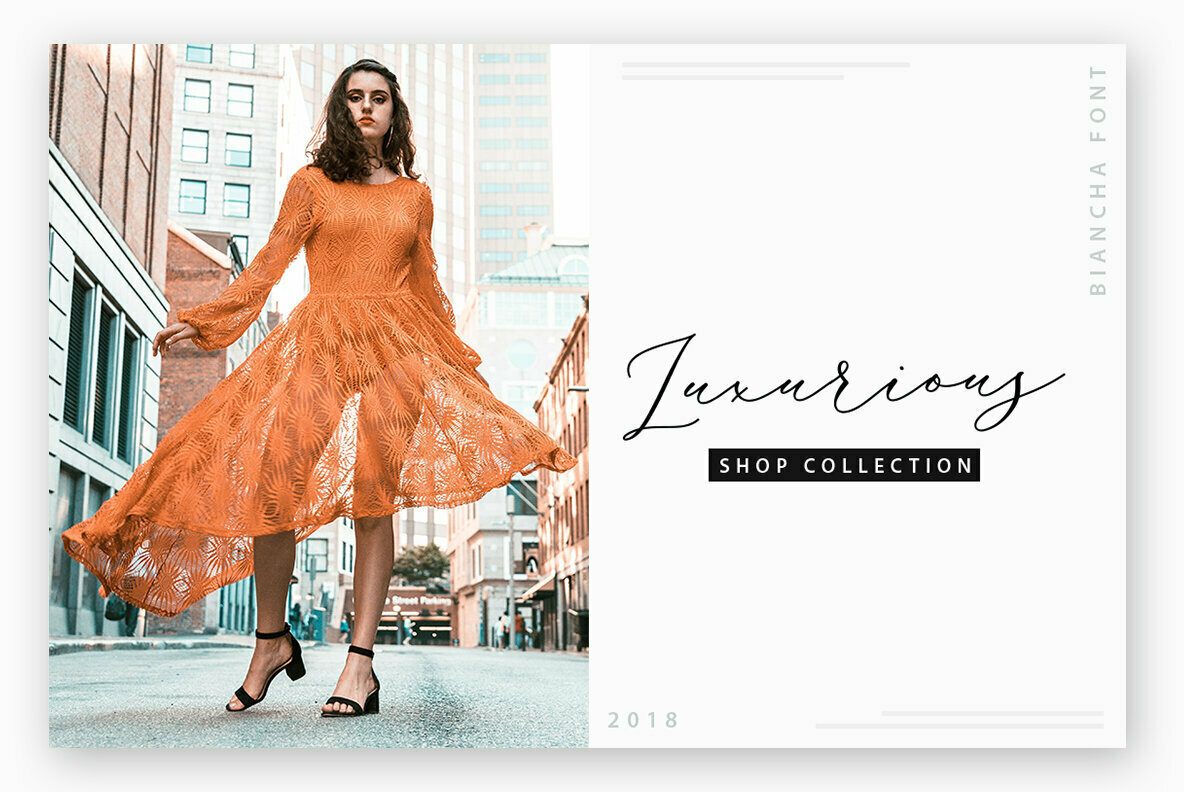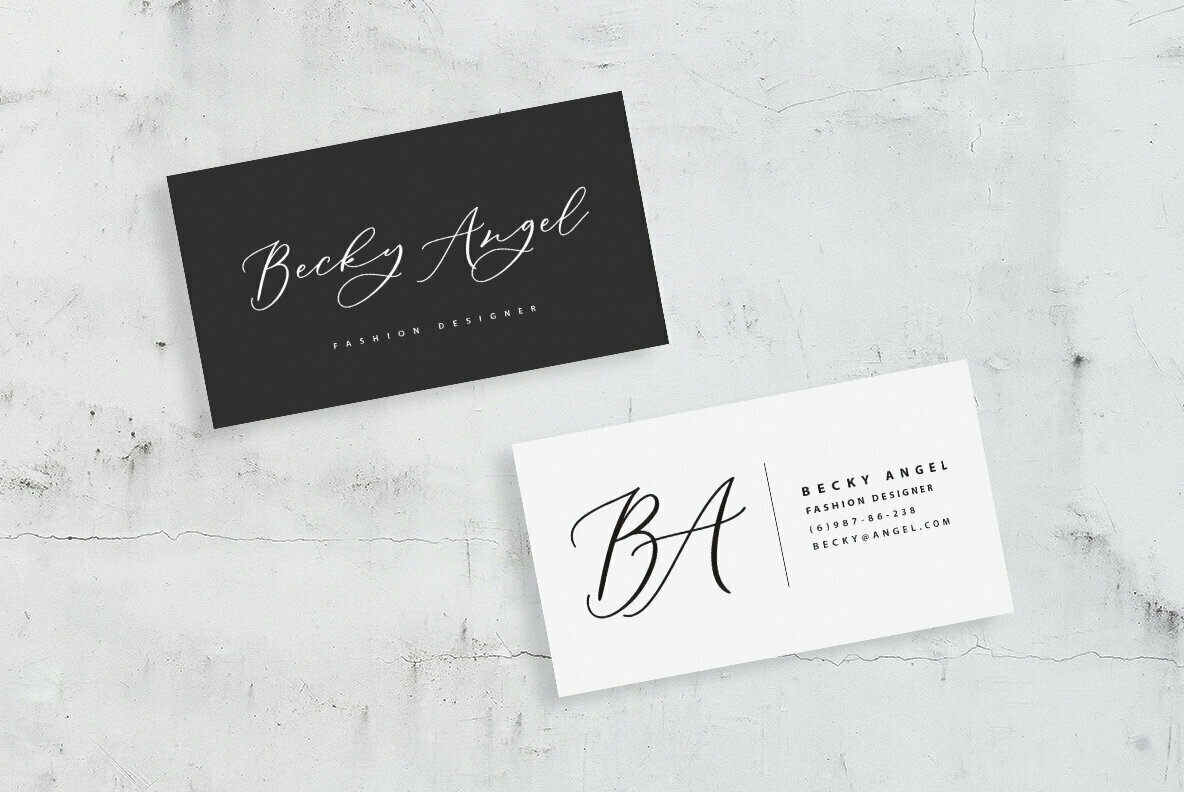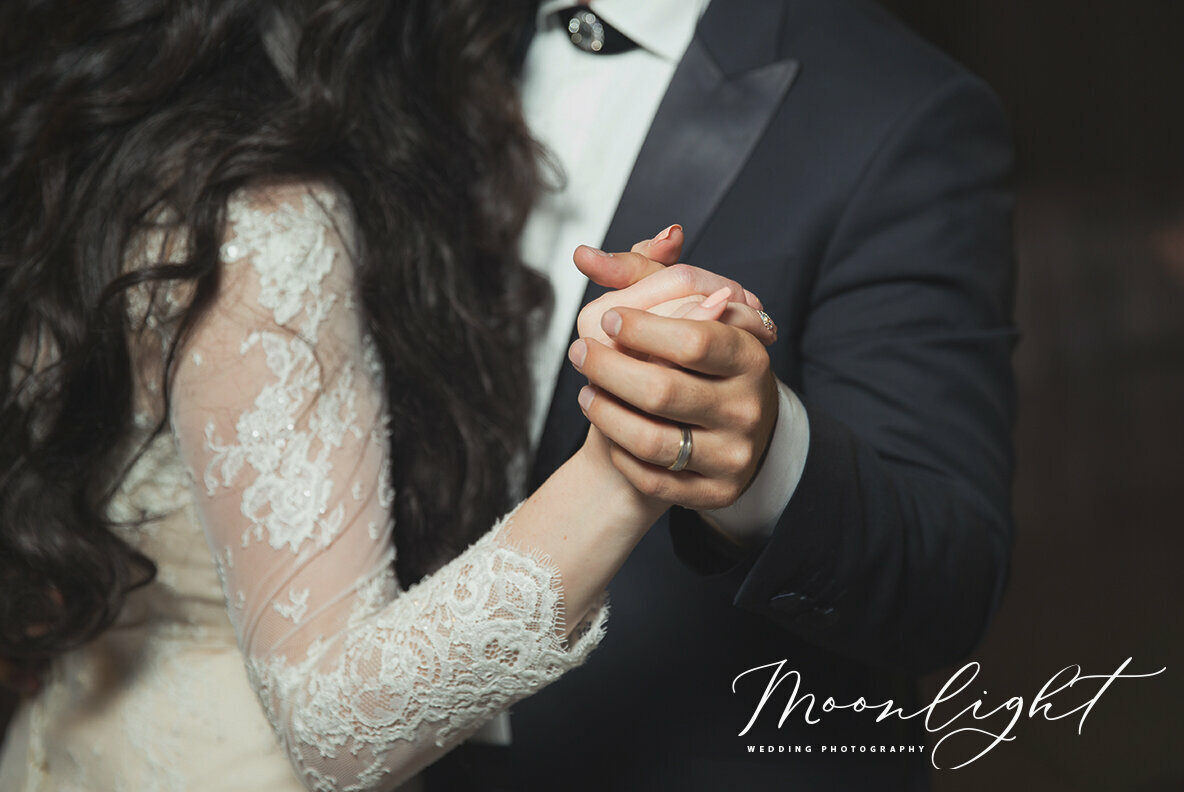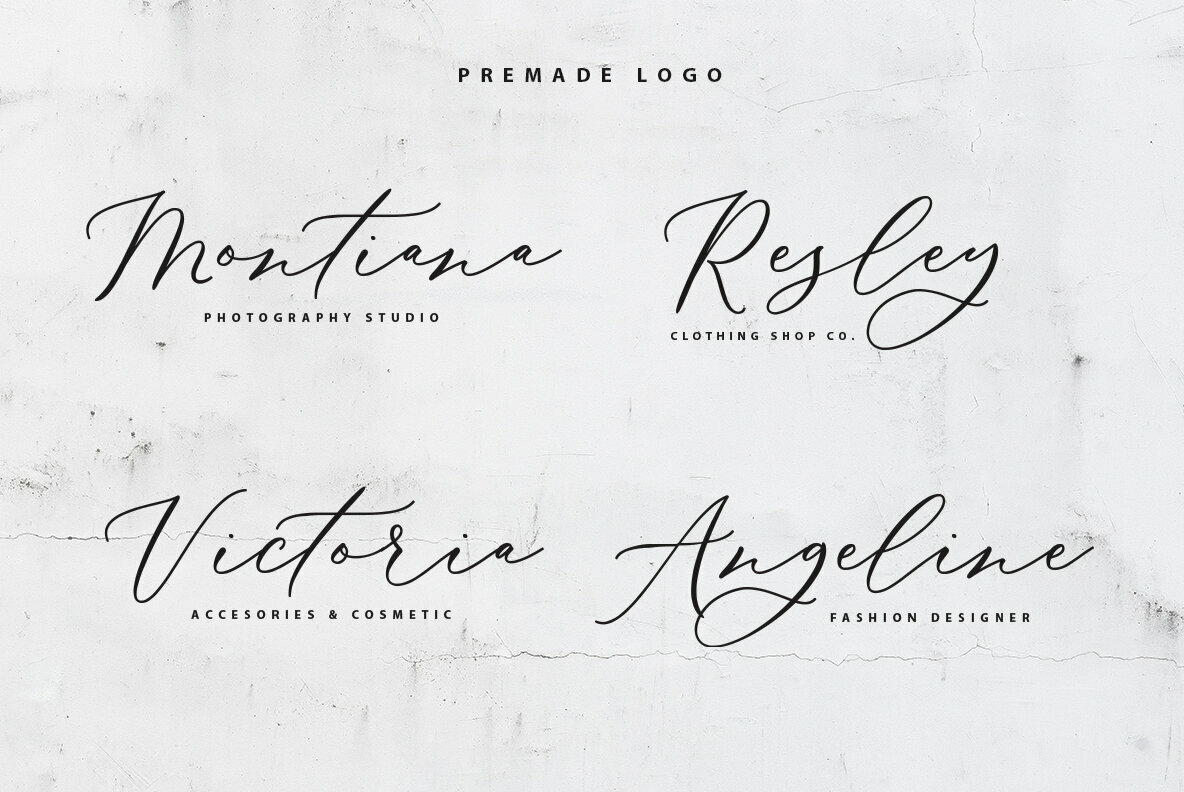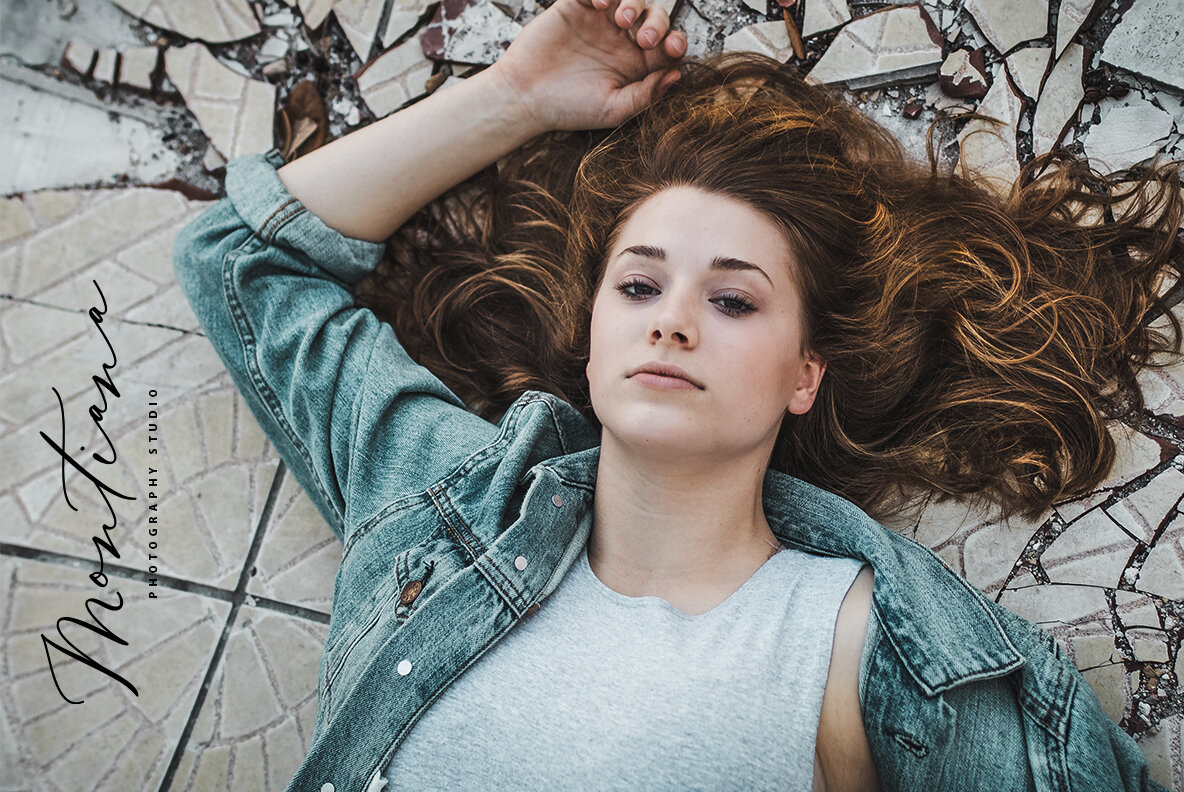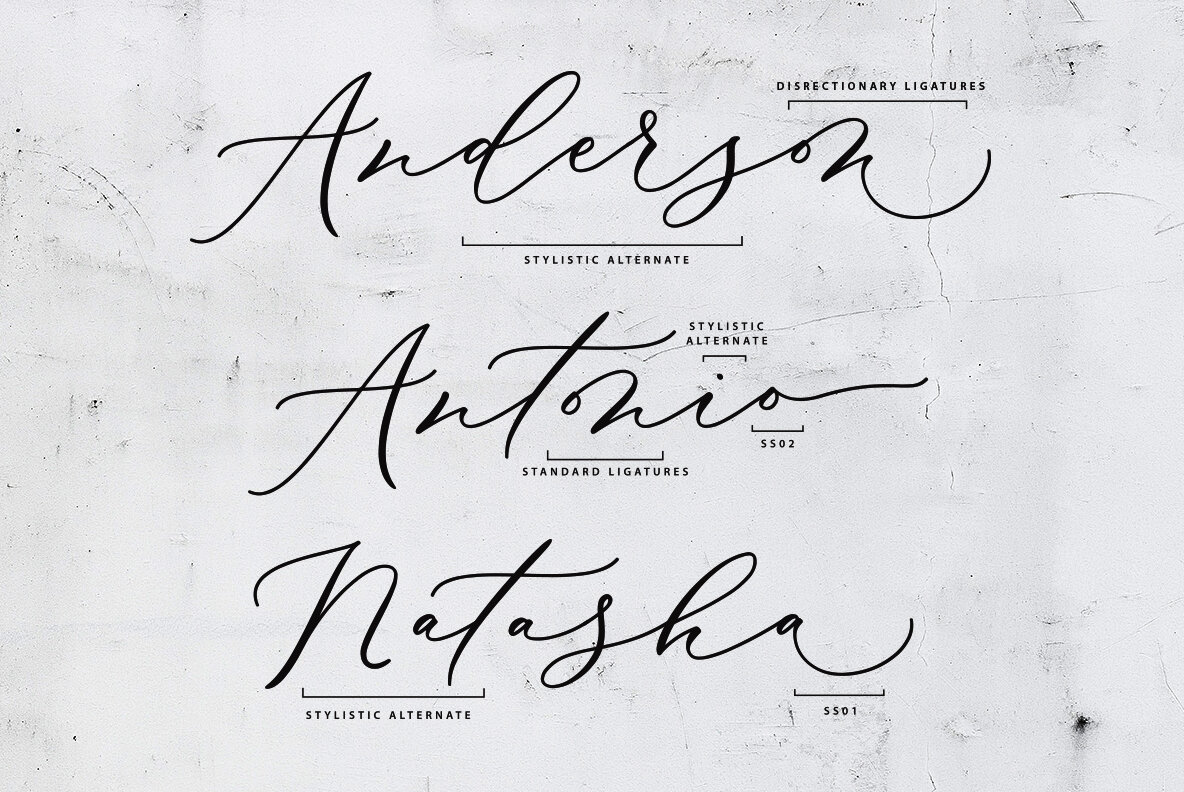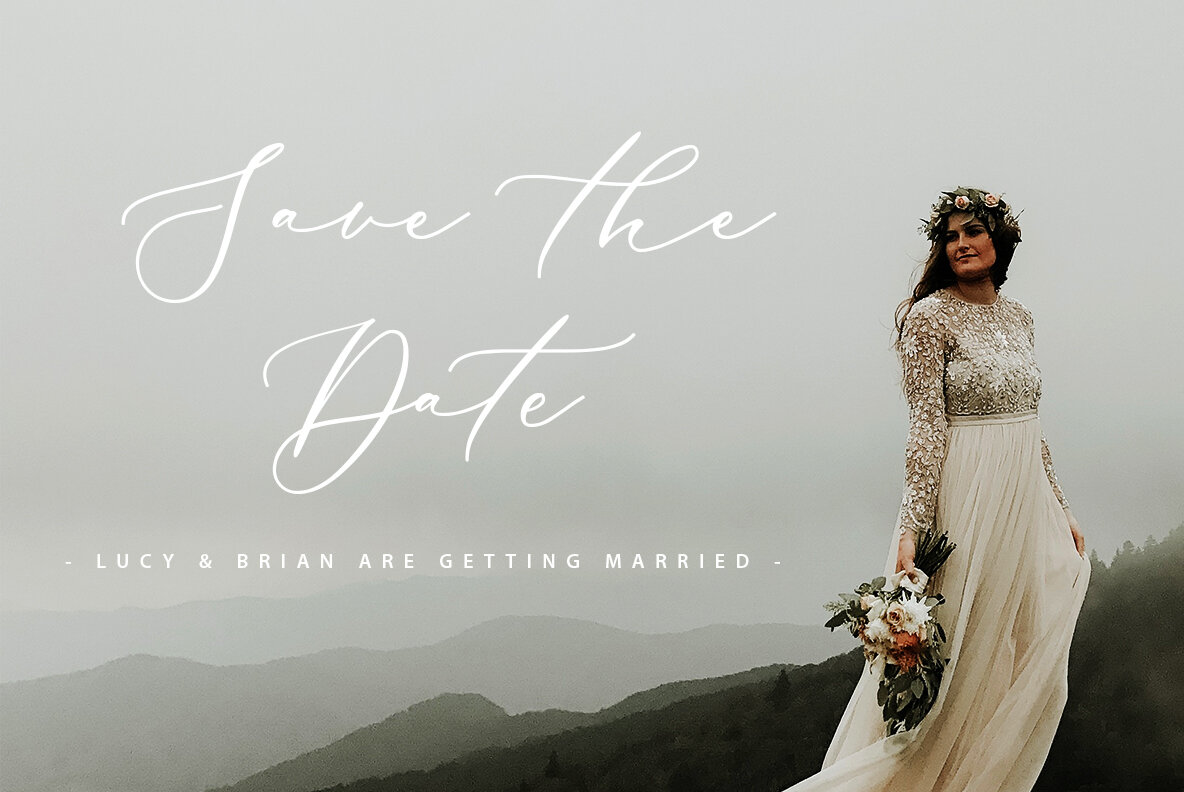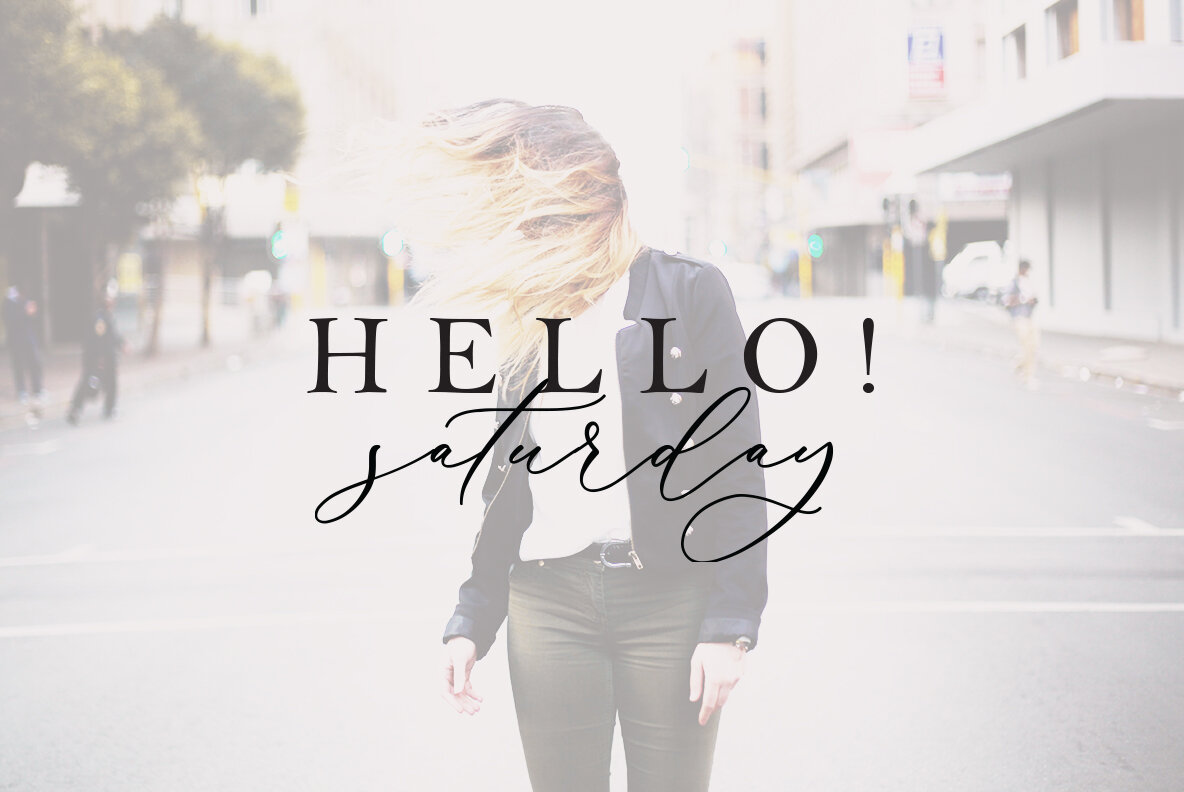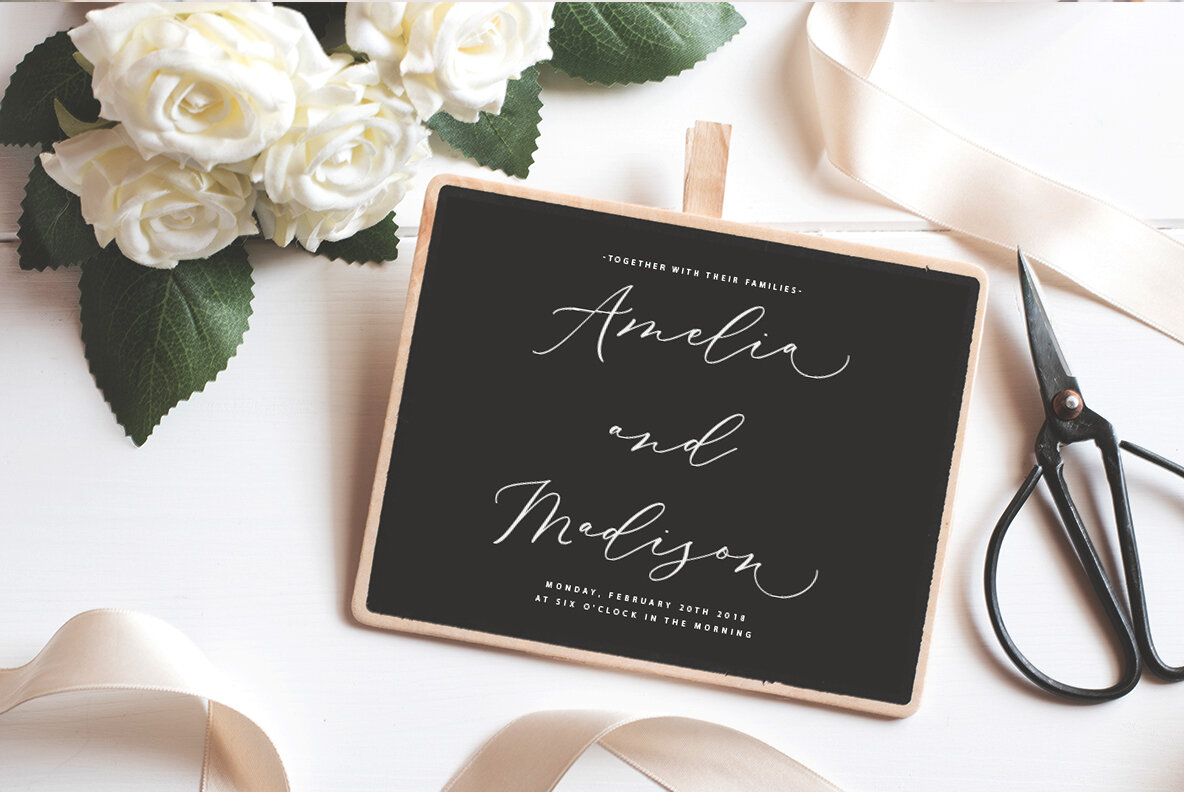
Biancha Font
Biancha
Biancha Script, crafted with subtle finesse, epitomizes elegance and style. Its slender and feminine design makes it a befitting choice for fashion industries, e-commerce ventures, and trendsetting blogs that aspire to communicate a sense of chic sophistication.Biancha Script: Elegance Meets Style